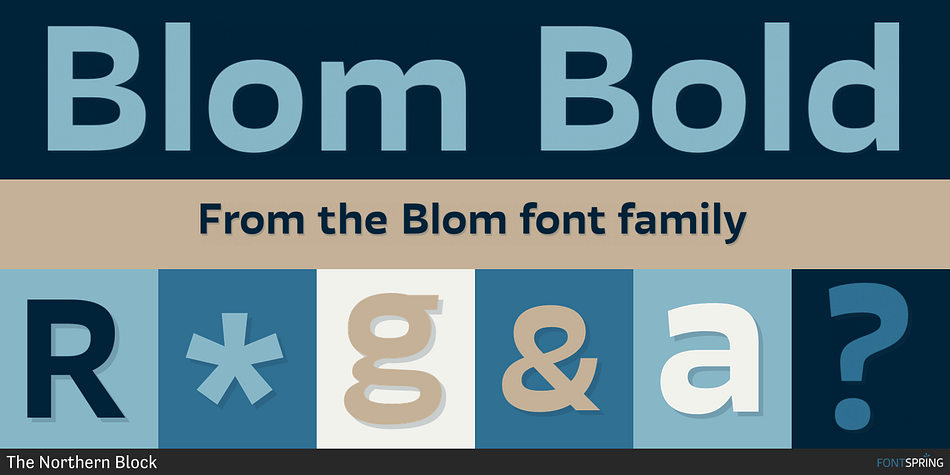
Designed by Jonathan Hill, Blom is a sans serif font family. This typeface has twelve styles and was published by The Northern Block.
Blom Bold
Blom is a humanist sans with subtle squarish character in reverse contrast. The combination of heavy horizontals and modern geometry give the typeface a unique visual aesthetic whilst making small text perfectly readable. Blom bucks the trend of conventional letterforms in favour of a versatile typeface with bags of originality, that is both inventive in style yet completely functional in a wide range of intended uses.
Details include 463 characters, six weights with matching italics and five variations of numerals. Opentype features include inferiors, superiors, fractions, slashed zeros, case-sensitive forms, ligatures and language support covering Western, South and Central Europe.